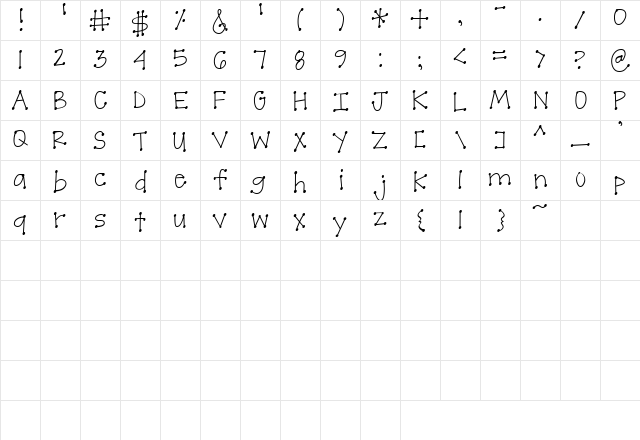
Scrap Sister Regular
Design Context for Scrap Sister Typeface
Scrap Sister is a composed and adaptable typeface that performs quietly and consistently across a wide range of design contexts.